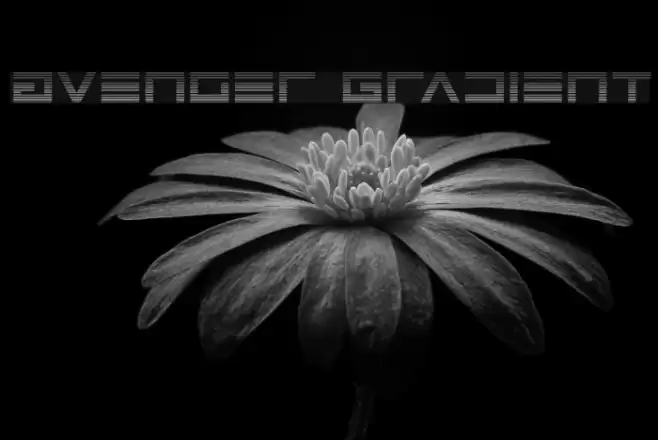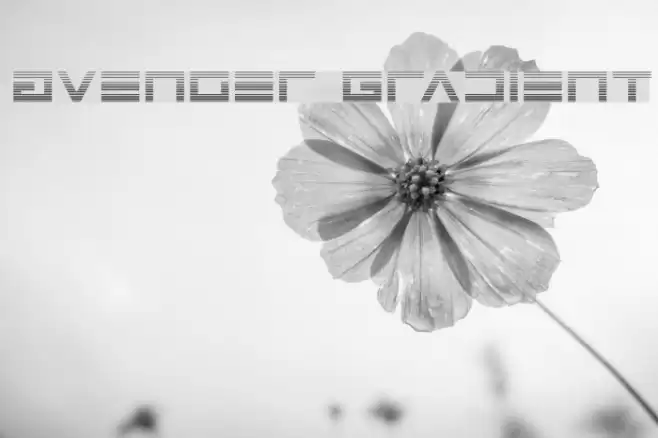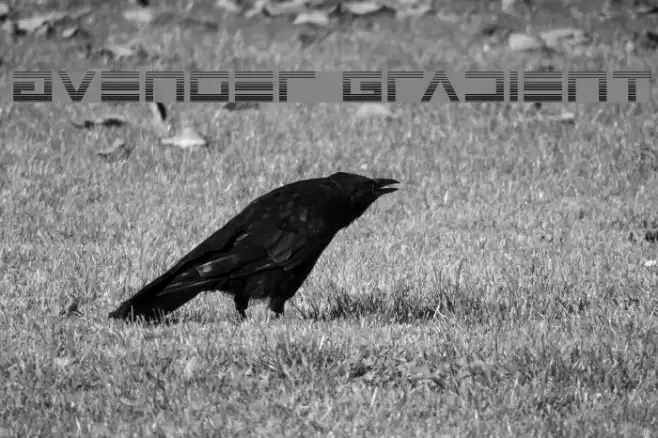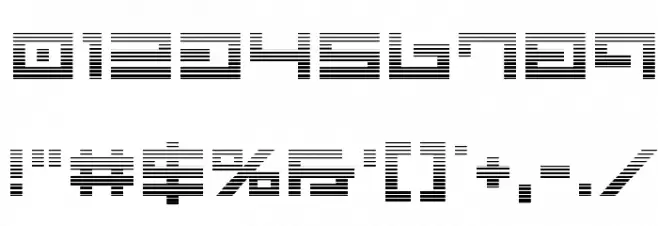
Avenger Gradient Font
Avenger Gradient Description
This font features a unique, futuristic design characterized by horizontal lines that create a gradient effect within each character. The uppercase and lowercase letters maintain a consistent geometric structure, giving the font a cohesive and modern appearance. The numerals and special characters follow the same stylistic approach, ensuring uniformity across all glyphs. The font's distinct line pattern adds a dynamic and eye-catching element, making it suitable for projects that require a bold and innovative look.
A futuristic font with gradient-like horizontal lines and geometric structure from Uncategorized fonts.
- Proposed Projects: Ideal for sci-fi themed designs, tech branding, video game titles, and modern posters.